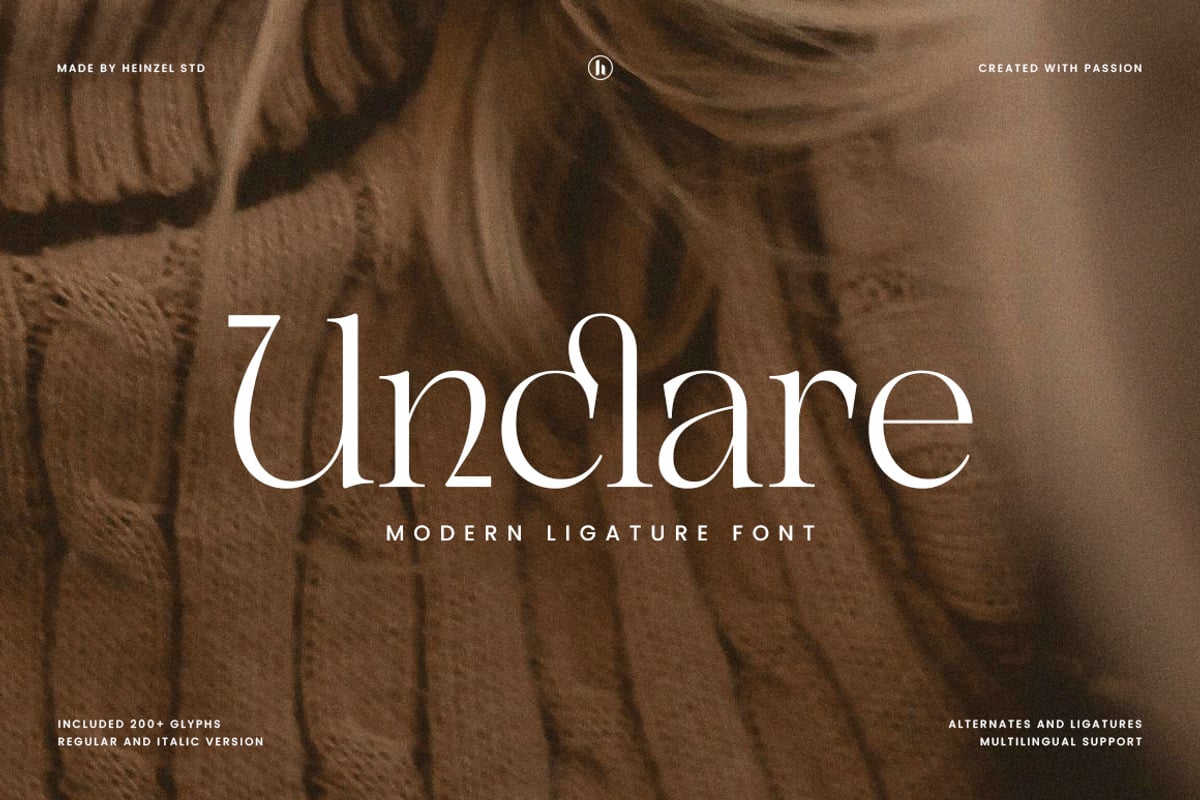
Unclare Modern Ligature Font
Unclare is a striking ligature serif font that fuses timeless elegance with bold contemporary style.
Designed for creators who demand sophistication, Unclare brings a refined aesthetic to logos, headlines, branding materials, wedding invitations, and beautiful stationery. Its captivating character design makes a lasting impression across both print and digital applications.
PUA encoding gives you seamless access to a rich library of unique glyphs, unlocking creative versatility for any project — from luxury brand identities to eye-catching social media content.
Unclare Features:
- Regular and Italic versions included
- Uppercase, lowercase, numerals, and extended punctuation
- Ligatures and alternate characters
- Multilingual language support
- PUA encoding for easy glyph access